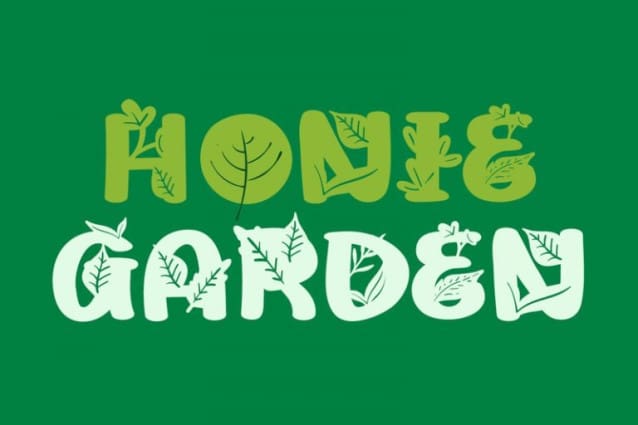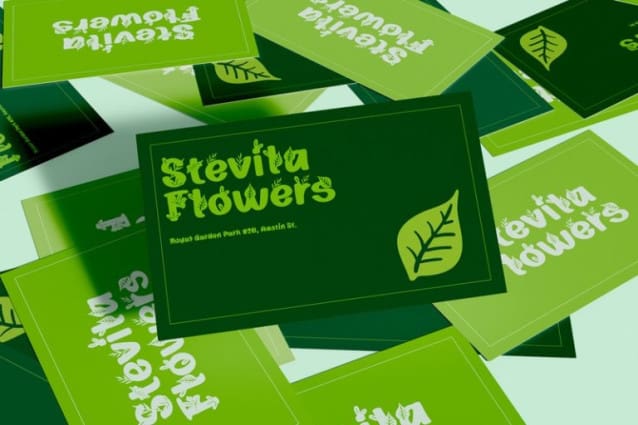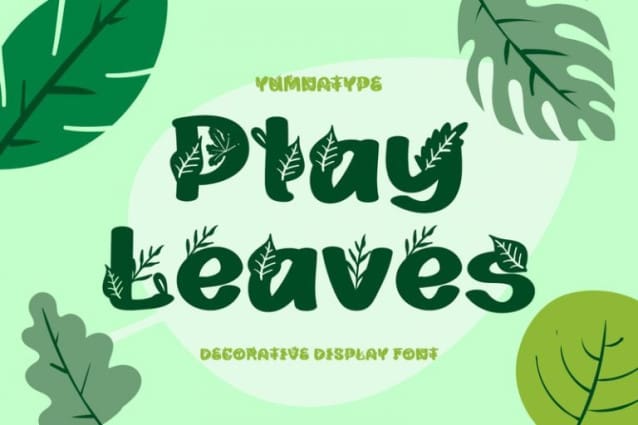
Play Leaves Font
Play Leaves is a plant leaves-inspiring display font. Its simple, round letters have natural, organic leaf ornaments along with the unique characteristics of elegant, modern displays in natural looks. For that reason, it is suitable to apply for simple, yet elegant designs with which you can emphasize the delivery of messages in your graphic designs.
Such font is perfectly applicable for any related natural, environmental, organic product designs and expresses fresh, cool, natural nuances to apply for health and natural element products such as cosmetics and food. Moreover, Play Leaves provides a clipart in accordance with the font theme as a bonus and features you can enjoy.
Play Leaves fits best for various design projects, such as brandings, headings, magazine covers, quotes, printed products, merchandise, social media, etc. Find out more ways to use this font by taking a look at the font preview.